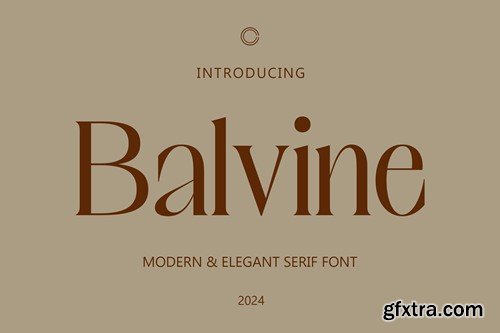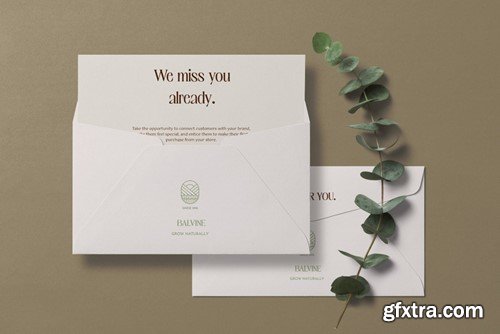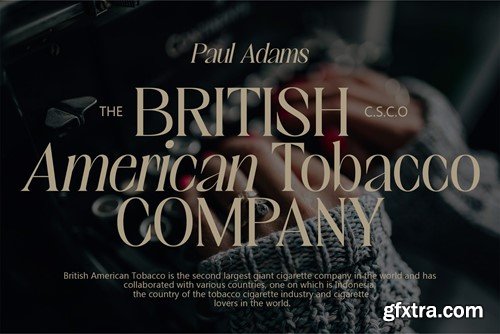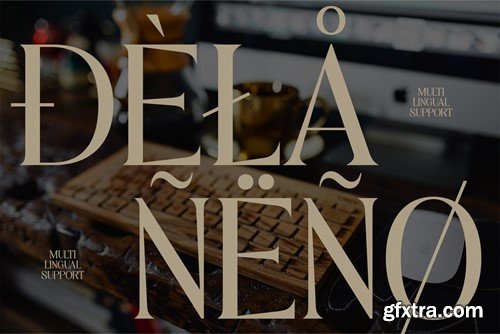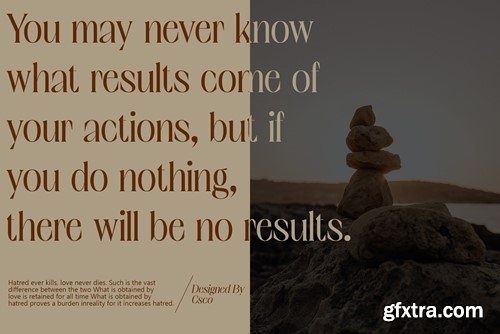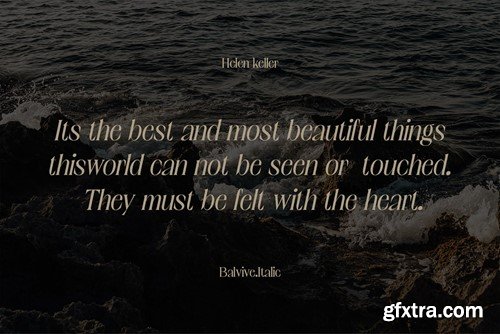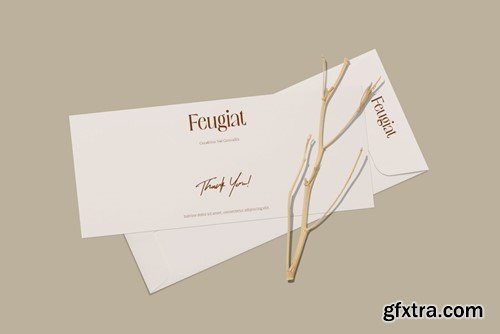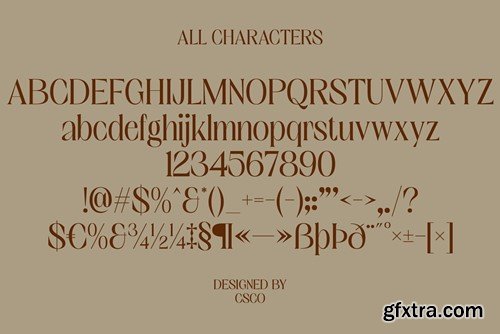
巴尔维尼 – 美术字体 3VWT3UA
Balvine Font: The Epitome of Stylish Elegance Chic Inspiration Balvine, a serif masterpiece, draws inspiration from the ever-evolving realm of beauty and fashion. This font is a symphony of sophistication, encapsulating the essence of haute couture and runway finesse. Every curve and contour echoes the grace and refinement found on the pages of elite fashion magazines. Editorial Excellence Tailored for editorial brilliance, Balvine’s sleek and refined characters are a harmonious marriage of fashion-forward aesthetics and timeless elegance. It effortlessly transforms mundane text into captivating narratives, ensuring your editorial layouts exude an air of sophistication. Elevate Your Designs Let Balvine font redefine your creative narrative, ensuring that every stroke embodies a sense of style that transcends the ordinary. Each character is a testament to the font’s commitment to providing a visual language that speaks volumes in elegance. Conclusion In the world of fonts, Balvine reigns supreme as an icon of stylish charm and editorial excellence. It’s not just a typeface; it’s a statement—a testament to the fusion of style and substance. Elevate your designs with Balvine, where every character tells a story of elegance, sophistication, and timeless beauty. What you get : Balvine Regular Balvine Italic Features : Uppercase and lowercase characters Numerals and Punctuation (OpenType Standard) Accents (Supports Multilingual Characters) PUA Encoding You can use this typeface without needing any specialized software. If you have any inquiries or need assistance, please feel free to contact us. We appreciate your support in enhancing your creative projects! Best regards, Craft Supply Co.